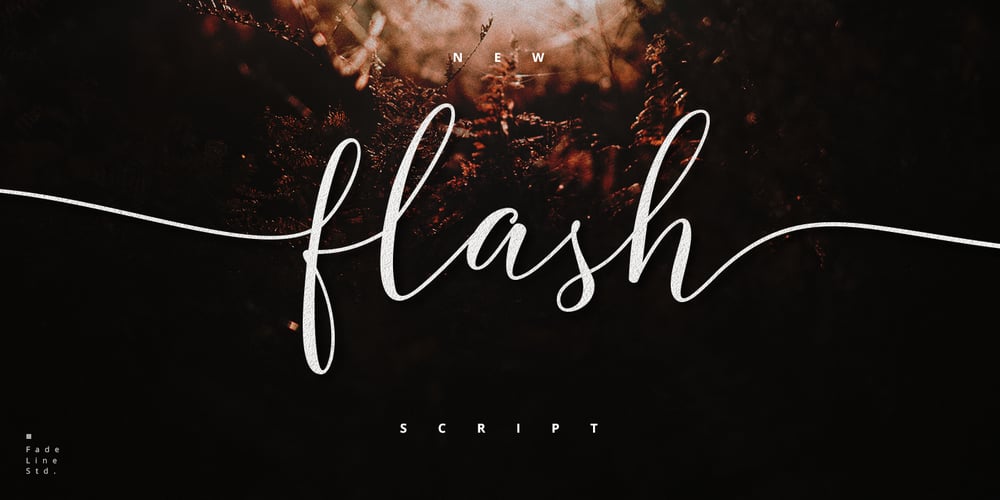
Flash Script Font Family was designed by Juni Fadil Putra and published by FadeLine Studio. Flash Script contains 1 styles and family package options. Flash Script is a modern script font. This is a beautiful font with slanted handmade style. Made by soft and slowly aims to give the character of modern writing that is smooth, cute, simple, stylish, sweet and dancing. This font can be used anywhere as the main font or as a pairing font. With a style like this, this font will be suitable in use for lettering logo’s, branding projects, homeware designs, product packaging, mugs, quotes, posters, shopping bags, t-shirts, book covers, name card, invitation cards, greeting cards, and all your other lovely projects. Available 611 glyphs in it! So you can freely and comfortably use it when you make your best design work. This Font support with Opentype Feature! Thank you